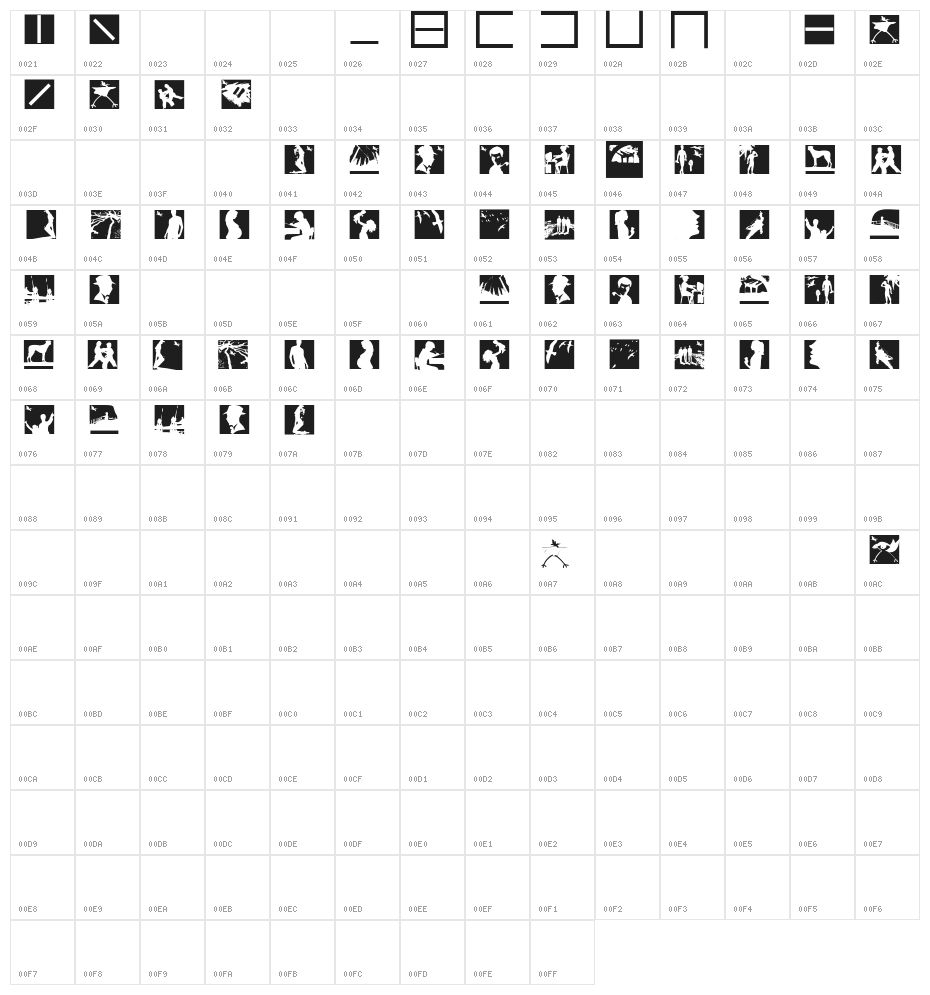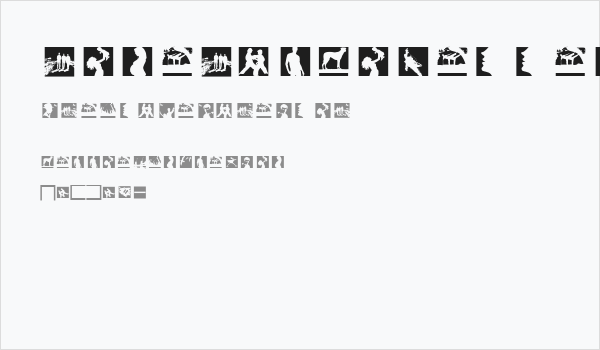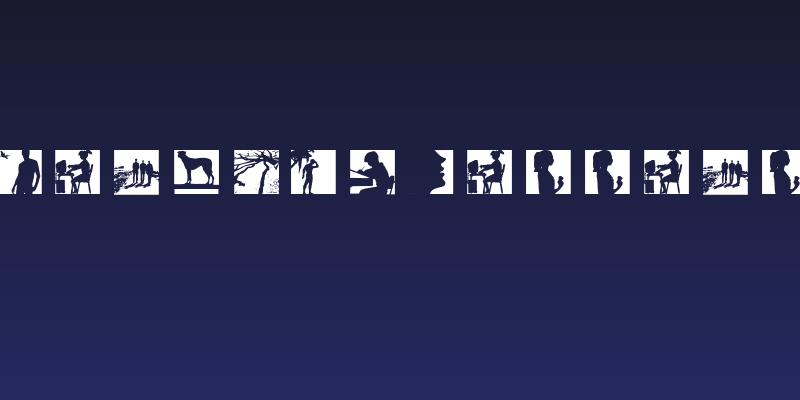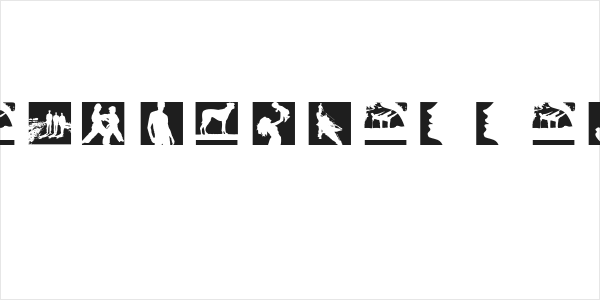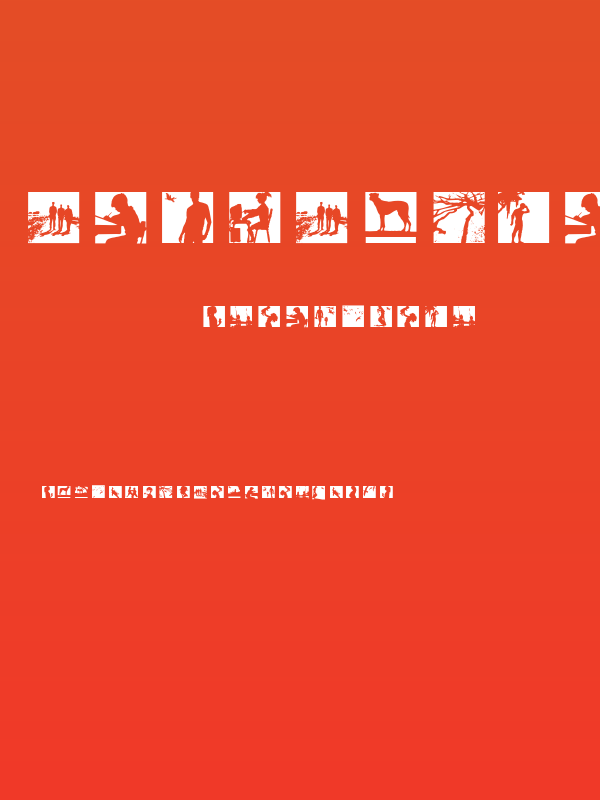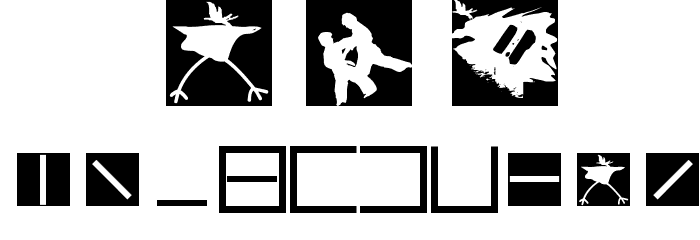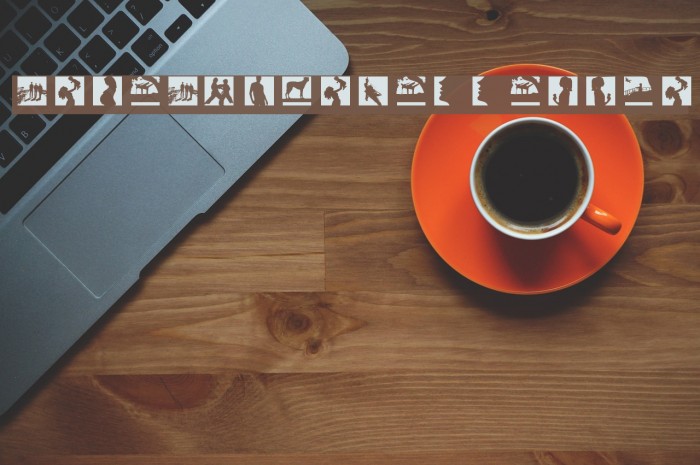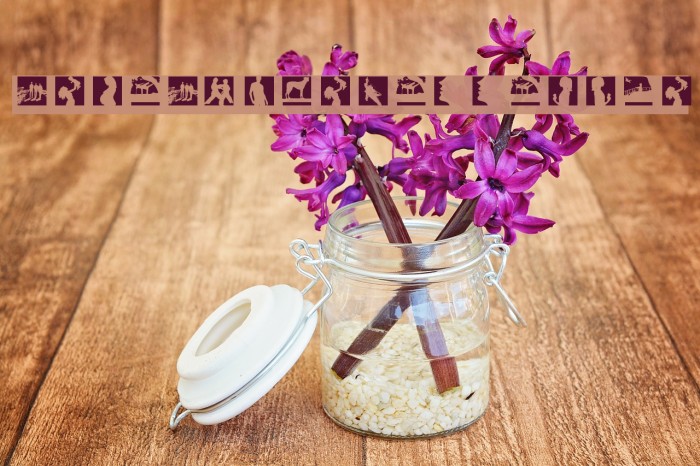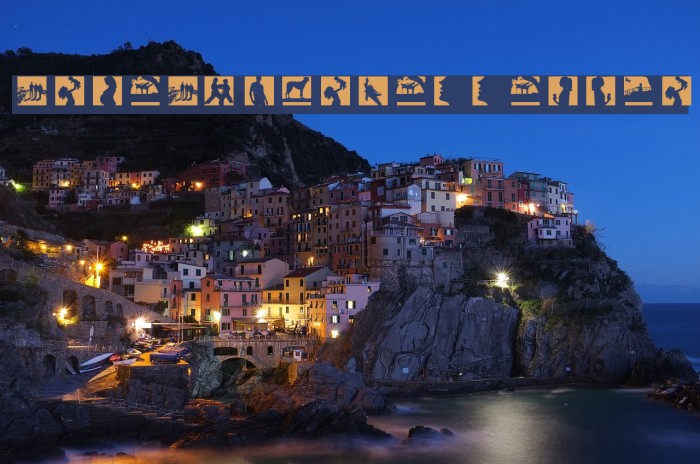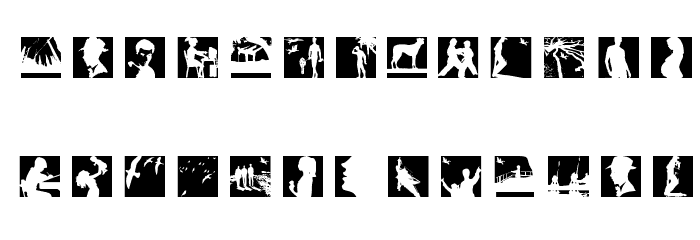
SomeSilhouettesTwo Font
SomeSilhouettesTwo Description
This is a decorative font composed entirely of intricate silhouettes, each character featuring a unique design that resembles various figures and scenes. The silhouettes are bold and striking, set against a solid background, creating a high contrast that makes each character stand out distinctly. The font does not follow traditional letterforms, instead offering a creative and artistic representation of each character. This style is highly visual and thematic, making it suitable for projects that require a strong visual impact.
| Use Case | Logos, Posters, Artistic Projects |
| Proposed Projects | Ideal for artistic projects, posters, album covers, or any design work that benefits from a bold, visual statement. |